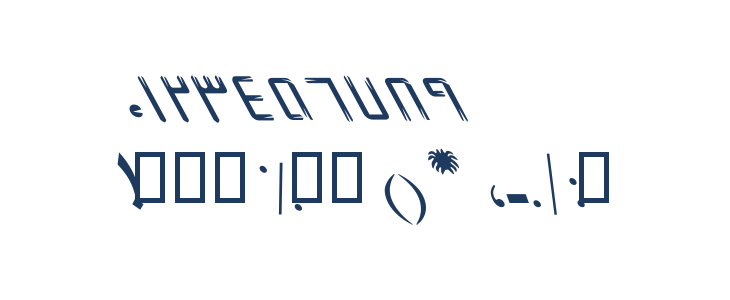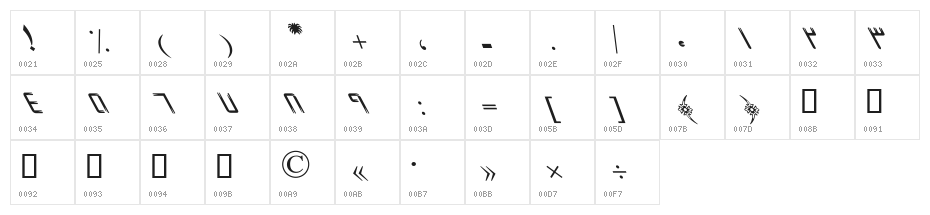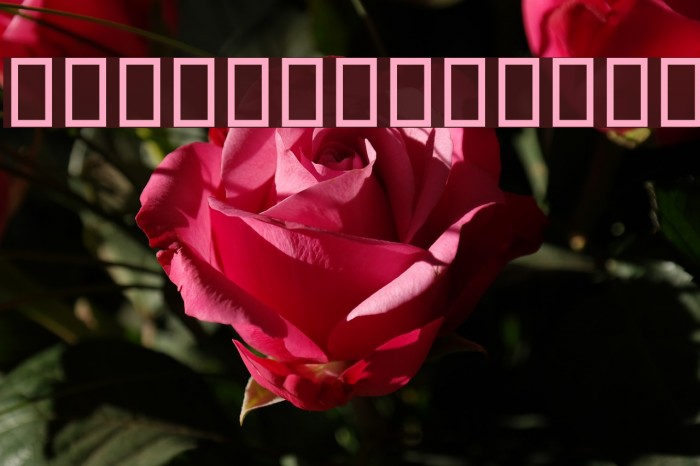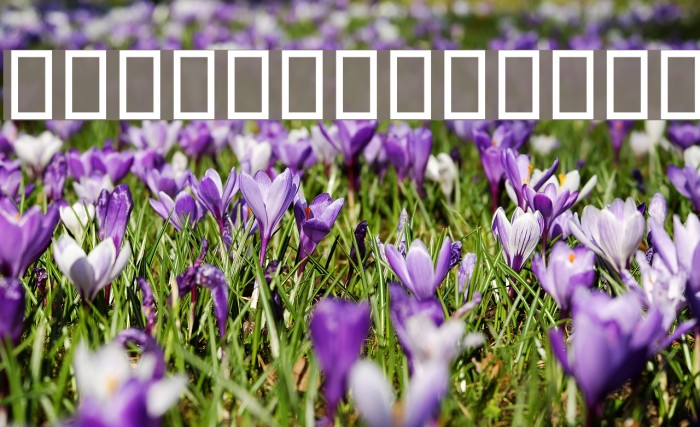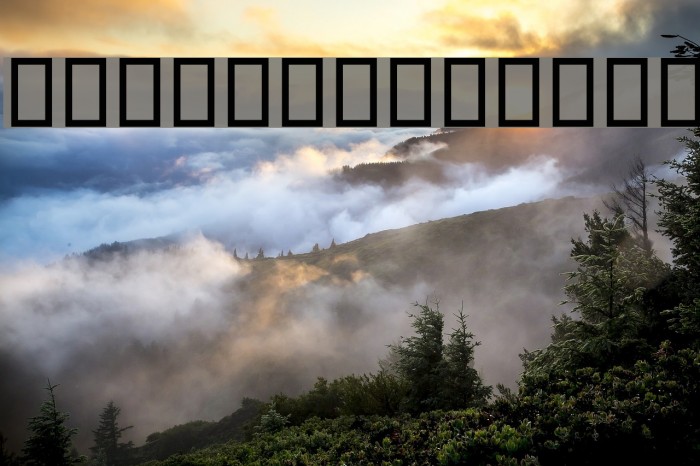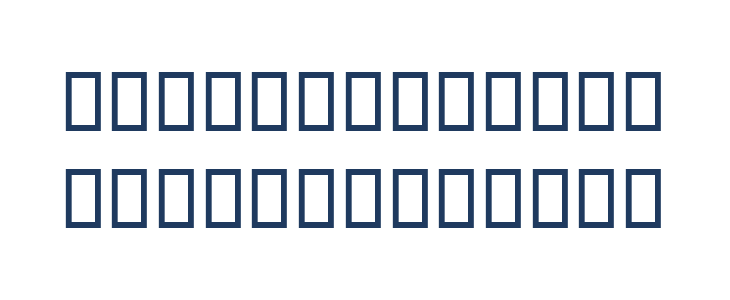
Fantezy Font
Fantezy Description
This font features a highly decorative and futuristic style, characterized by its angular and geometric shapes. The letters are designed with sharp edges and a sense of motion, giving them a dynamic appearance. The characters are uniform in height, with consistent spacing that maintains readability despite the intricate design. This font is particularly striking due to its unique blend of modern aesthetics and a slightly retro-futuristic vibe, making it stand out in any design context.
گالری فانت فارسی پژوهش آريانا - only compatible with Farsi and Arabic
| Overall Style | Futuristic, Decorative |
| Proposed Projects | Ideal for sci-fi themed posters, video game titles, futuristic branding, and tech-related advertisements. |